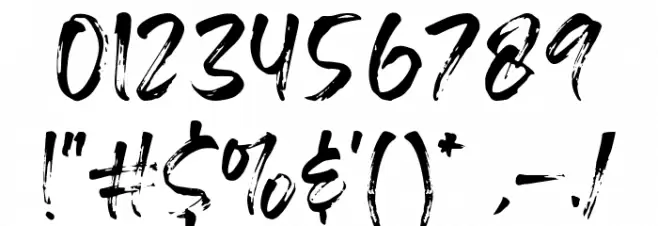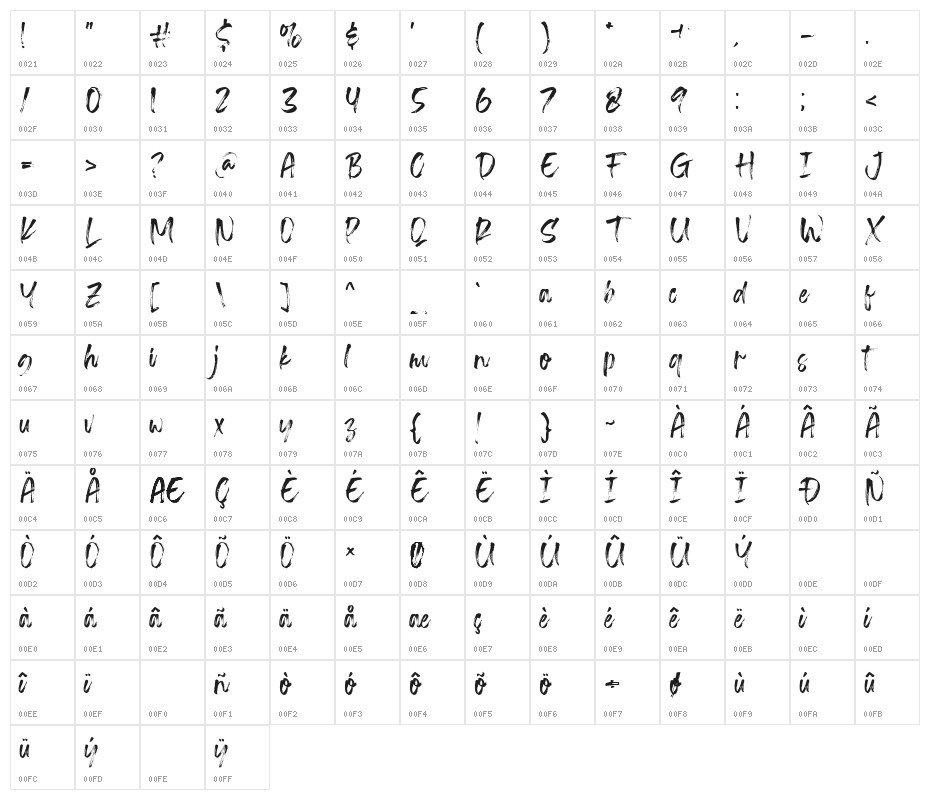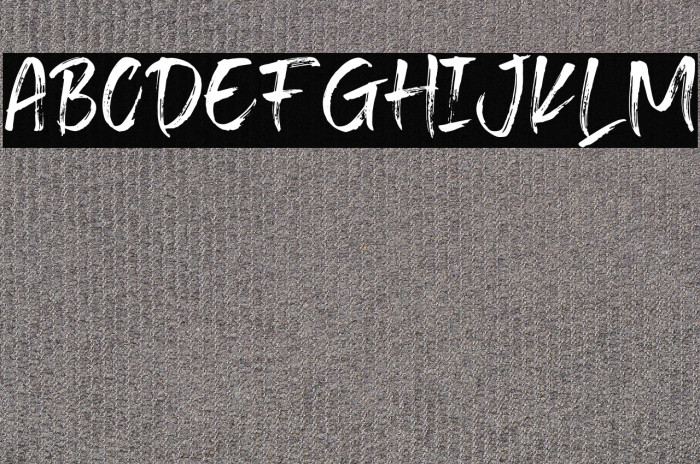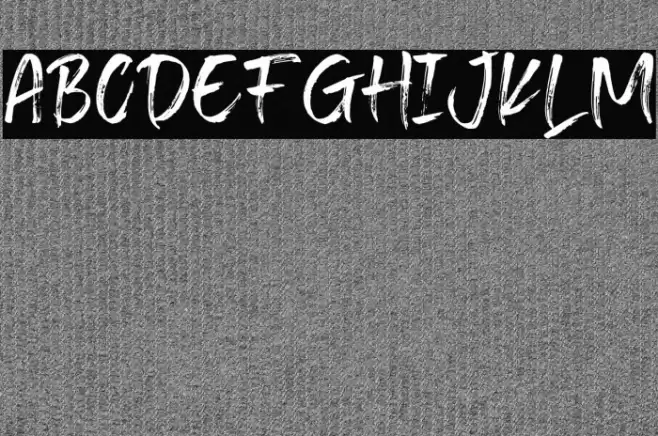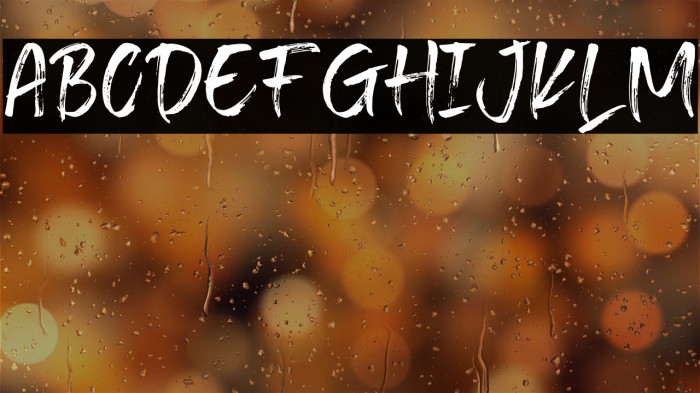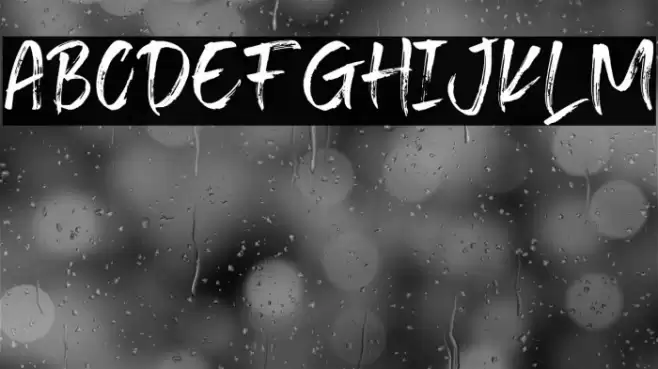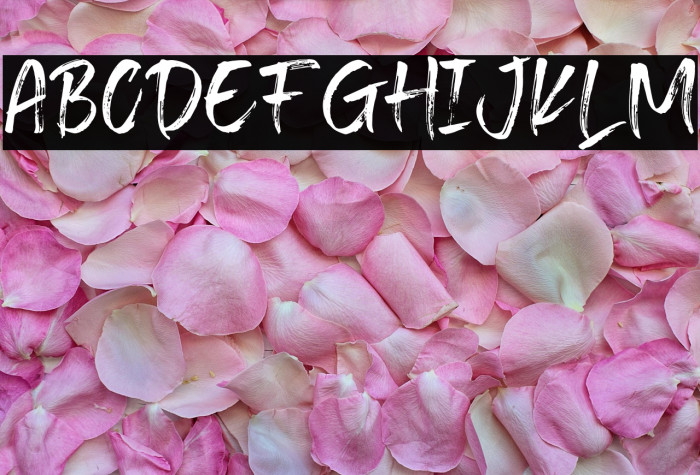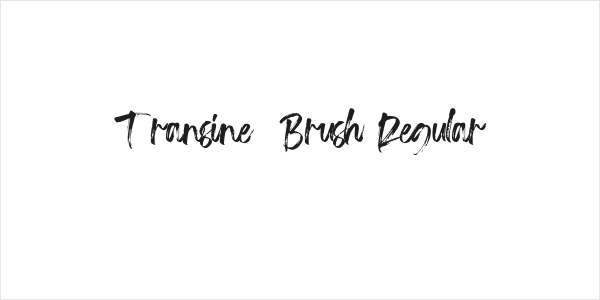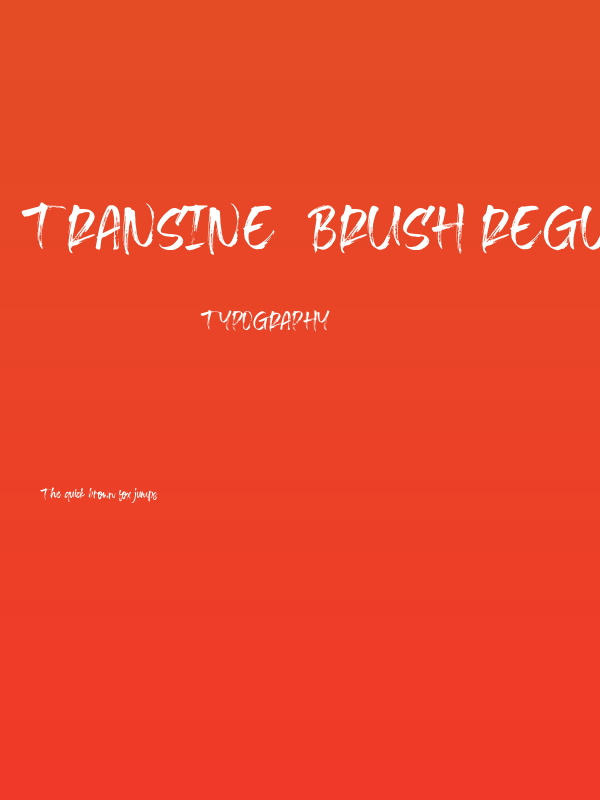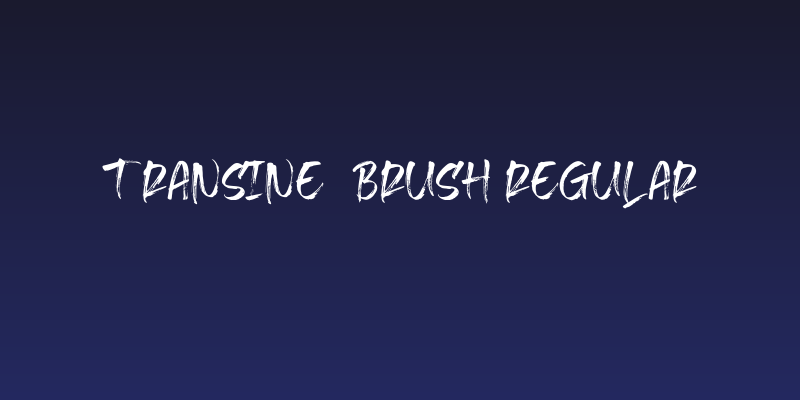
Transine Brush Regular Font
Transine Brush Regular Description
This font exhibits a dynamic and expressive brush style, characterized by its bold, sweeping strokes and textured appearance. The letters have an organic flow, with varying thickness that mimics the natural movement of a brush. The uppercase letters are bold and impactful, while the lowercase letters maintain a fluid and connected style, enhancing the handwritten feel. Numbers and special characters follow the same aesthetic, providing a cohesive look across all glyphs. The overall design is energetic and artistic, making it suitable for creative and informal applications.